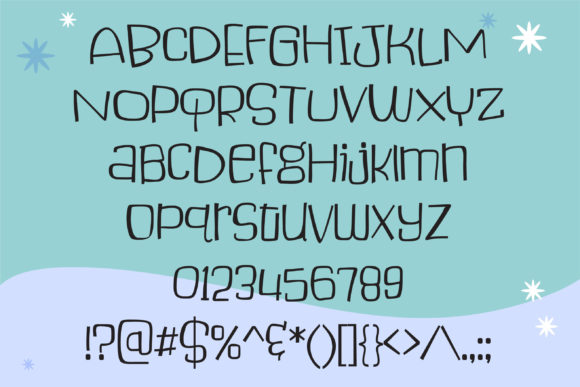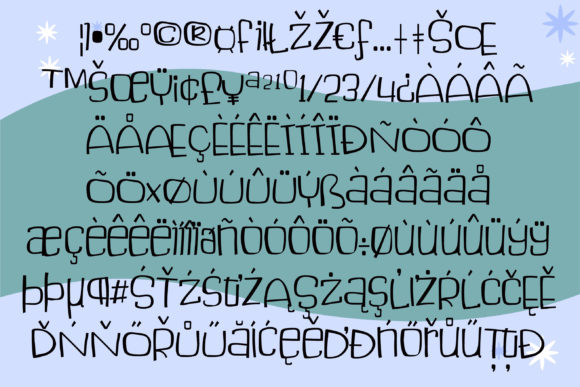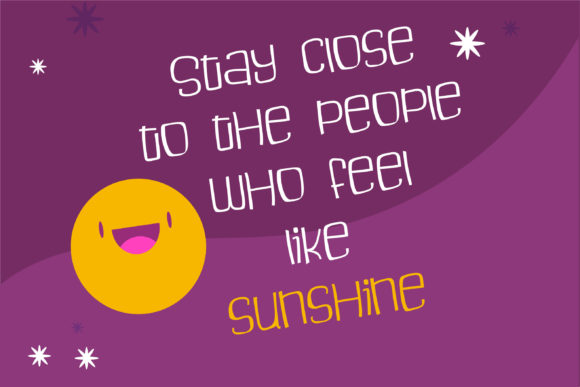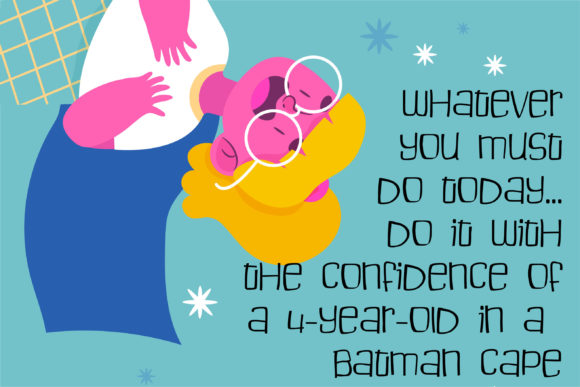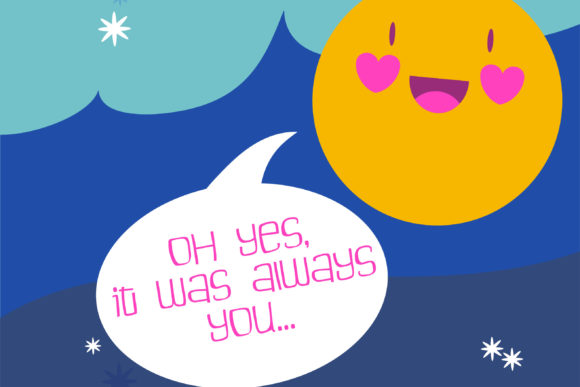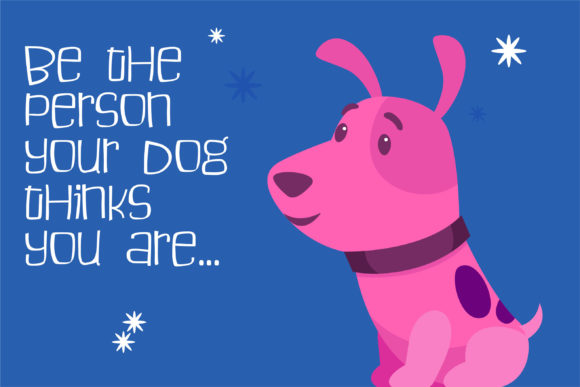
Introducing Extrospective Font: The Fun and Friendly Handwritten Font You Need
Are you tired of using the same old fonts in your designs? Do you want to add a touch of personality and whimsy to your creations? Look no further than Extrospective Font, a fun and friendly handwritten font that’s sure to elevate your font library. In this article, we’ll dive into the world of Extrospective Font and explore its features, benefits, and uses.
What is Extrospective Font?
Extrospective Font is a modern, handwritten font that’s designed to bring a smile to your face. With its playful and carefree vibe, this font is perfect for designers, crafters, and anyone looking to add some personality to their work. Whether you’re creating a social media post, a blog article, or a marketing campaign, Extrospective Font is the perfect choice.
Key Features of Extrospective Font
- Handwritten style: Extrospective Font is a true handwritten font, with each letter and character carefully crafted to give it a personal and unique feel.
- Fun and friendly: This font is designed to be fun and approachable, making it perfect for designs that need a playful touch.
- Versatile: Extrospective Font can be used for a wide range of projects, from social media posts to marketing campaigns, and even craft projects.
- Easily readable: Despite its playful nature, Extrospective Font is still highly readable, making it perfect for body text and captions.
Benefits of Using Extrospective Font
So why should you choose Extrospective Font for your next project? Here are just a few benefits of using this amazing font:
- Adds personality: Extrospective Font brings a unique and playful personality to your designs, setting them apart from the crowd.
- Emotional connection: The friendly and approachable nature of this font helps to create an emotional connection with your audience.
- Improves engagement: By adding a touch of whimsy and fun to your designs, Extrospective Font can help improve engagement and interaction with your audience.
- Time-saving: With Extrospective Font, you can create professional-looking designs in no time, saving you time and effort.
Uses for Extrospective Font
So what can you use Extrospective Font for? The possibilities are endless! Here are a few ideas to get you started:
- Social media posts: Add a touch of personality to your social media posts and stand out in a crowded feed.
- Blog articles: Use Extrospective Font to add a playful touch to your blog articles and make them more engaging.
- Marketing campaigns: Create eye-catching marketing campaigns that grab attention and leave a lasting impression.
- Craft projects: Use Extrospective Font to add a personal touch to your craft projects, such as handmade cards and invitations.
Tips for Using Extrospective Font
Here are a few tips for getting the most out of Extrospective Font:
- Experiment with colors: Try pairing Extrospective Font with different colors to create a unique and eye-catching look.
- Play with sizes: Experiment with different font sizes to create visual interest and hierarchy.
- Mix and match: Try pairing Extrospective Font with other fonts to create a unique and interesting combination.
In conclusion, Extrospective Font is a fun and friendly handwritten font that’s perfect for designers, crafters, and anyone looking to add some personality to their work. With its playful and approachable vibe, this font is sure to elevate your font library and help you create amazing designs. So why wait? Give Extrospective Font a try today and see the difference it can make!